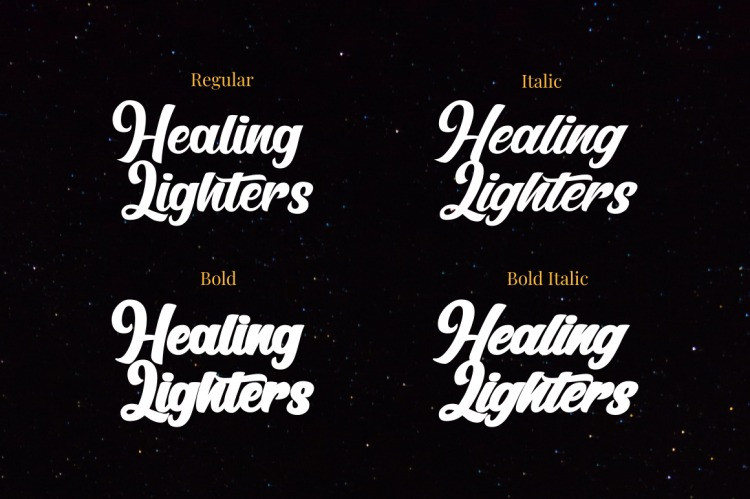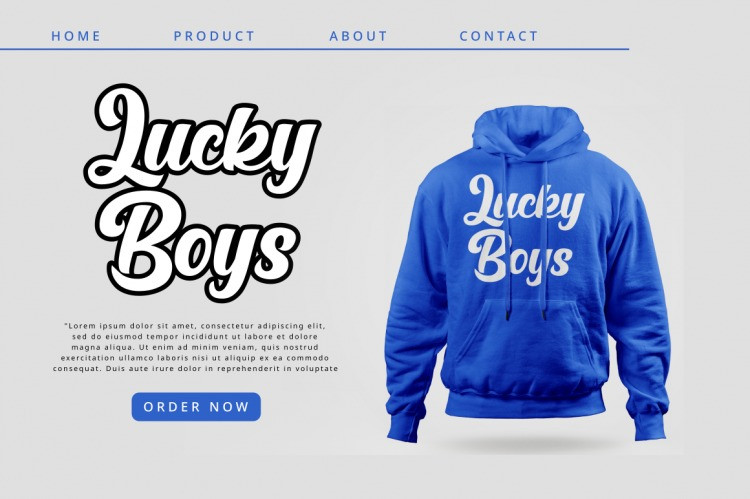
Healing Lighters Font
Healing Lighters Script Font is a modern bold script font with 4 style. Made with care to get the best curves to support the design you make more elegant.
Healing Lighters Suitable for all graphic designs such as branding materials, Lettering, calligraphy, t-shirts, prints, business cards, logos, posters, t-shirts, photography, quotes etc.
support for 50+ languages, This font will look awesome and amazing in many ways to your latest project.